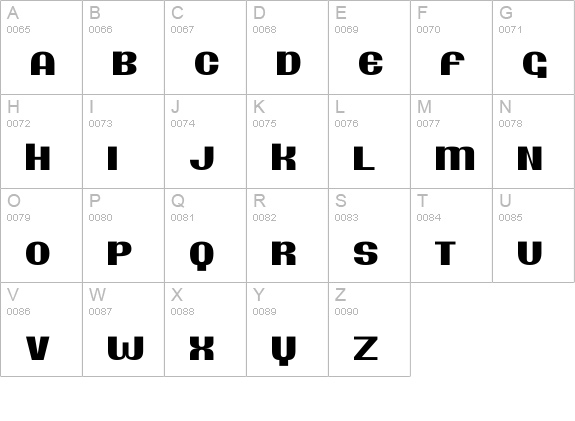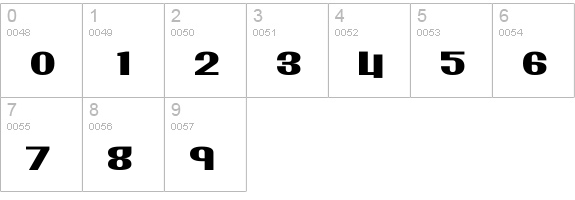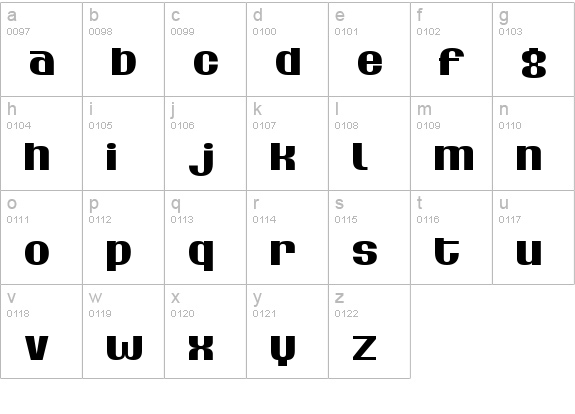
Silver Dollar Font Details
Silver Dollar font is a stunning display typeface that exudes a sense of elegance and sophistication. Its bold and captivating letterforms make it perfect for a wide range of design projects, from logos and branding to headlines and signage. The font's unique vintage-inspired style adds a touch of nostalgia and charm, making it a popular choice among designers who want to create a timeless and memorable visual identity. What makes Silver Dollar font even more appealing is that it is free to download at FontsMarket.com. This means that you can add this exceptional font to your collection without any cost. Whether you are a professional graphic designer or a hobbyist, having access to high-quality fonts at no charge is a valuable asset. With its well-crafted letterforms and attention to detail, Silver Dollar font is versatile and can be used in a variety of design contexts. Its legibility ensures that your message will be conveyed with clarity and impact, while its stylish aesthetic adds a touch of sophistication to any project. The Silver Dollar font's versatility is further enhanced by its extensive character set, which includes uppercase and lowercase letters, numerals, punctuation marks, and special symbols. This comprehensive range of characters allows you to express your creativity and craft designs that are truly unique. Whether you are working on a vintage-inspired project, a modern branding campaign, or anything in between, Silver Dollar font is sure to elevate your design to new heights. Its timeless appeal and stunning visual presence make it a must-have font for any designer. Remember, you can freely download Silver Dollar font at FontsMarket.com. Don't miss out on this opportunity to enhance your design projects with this exceptional and captivating typeface.